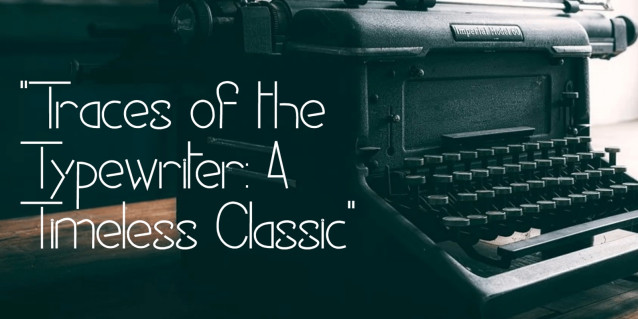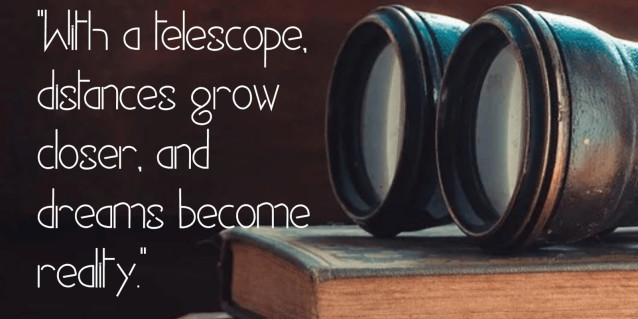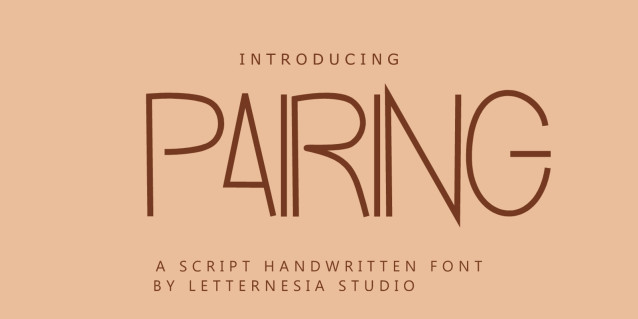
Pairing Font
Pairing Font is a modern sans-serif font designed to be the perfect companion for serif-style fonts. With clean lines, balanced proportions, and a minimalist letterform, Pairing exudes professionalism and elegance. It is crafted to provide a harmonious contrast when paired with serif fonts, creating visually appealing and easy-to-read combinations.